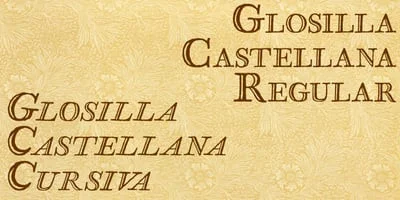
Glosilla Castellana Font
Glosilla Castellana Font is perfect for Spanish language learning materials, medieval Spanish manuscript reproductions, Castilian cultural heritage centers, Spanish literature publications, historical Spanish document archives, traditional Spanish academic institutions, Spanish linguistic research projects, medieval studies programs, Spanish royal history exhibitions, Castilian poetry collections, Spanish calligraphy workshops, and authentic Spanish cultural preservation communications.
This font is exciting because it captures the scholarly elegance and linguistic heritage of medieval Castilian Spanish, featuring gracefully academic letterforms that flow with the same intellectual sophistication and cultural authority found in ancient Spanish glossaries and medieval manuscripts where scholars meticulously documented the evolution of the Spanish language from Latin into the rich, expressive tongue that would become the foundation for modern Spanish literature and the primary language of an entire hemisphere. The masterfully crafted character design embodies both the scholarly precision of medieval linguists and the cultural pride of Castilian heritage, creating typography that feels both academically authoritative and culturally authentic. Each letter carries the weight of linguistic scholarship and Spanish cultural tradition that transforms ordinary text into declarations worthy of Spain's magnificent literary heritage and scholarly traditions.
The Glosilla Castellana Font family includes regular weight with complete character sets featuring Spanish accent marks, medieval-inspired numerals, scholarly punctuation marks, and decorative elements reminiscent of illuminated manuscripts, royal Spanish documents, medieval calligraphy, and traditional Spanish academic typography. Advanced versions may offer additional stylistic variants with enhanced manuscript effects, alternate characters that reflect authentic medieval Spanish lettering practices, and ornamental elements that celebrate the rich heritage of Spanish linguistic scholarship and Castilian cultural traditions.
Whether you're developing Spanish educational materials, creating medieval studies content, or designing authentic Spanish cultural publications, Glosilla Castellana Font provides the scholarly authenticity and cultural dignity your project needs to honor Spanish linguistic heritage while serving educational and cultural institutions that preserve and celebrate the magnificent traditions of Spanish language and literature. This typeface transforms ordinary text into scholarly expressions that bridge medieval Spanish scholarship with contemporary Spanish language education. The font's academic character makes it essential for institutions and publications that serve Spanish language scholars and cultural preservationists. Spanish linguistics enthusiasts and medieval studies educators will appreciate how this font brings authentic Castilian scholarly tradition to their work with its genuinely academic and culturally significant character that preserves linguistic heritage.